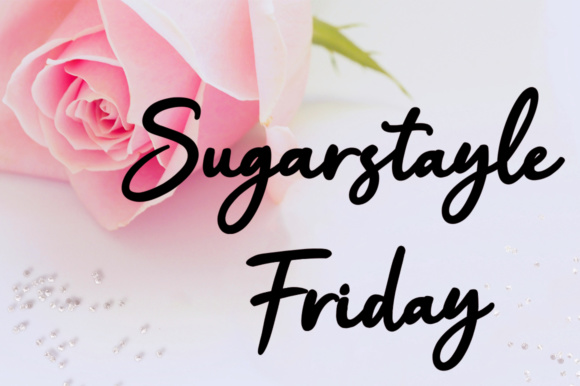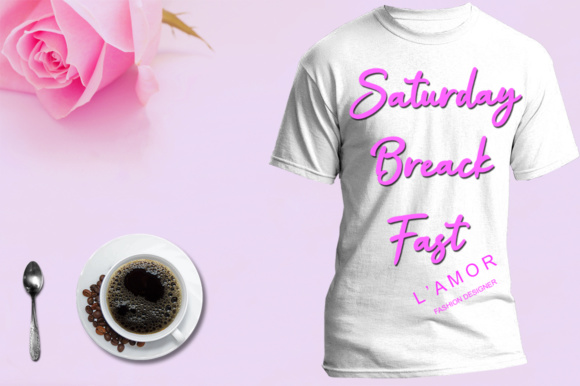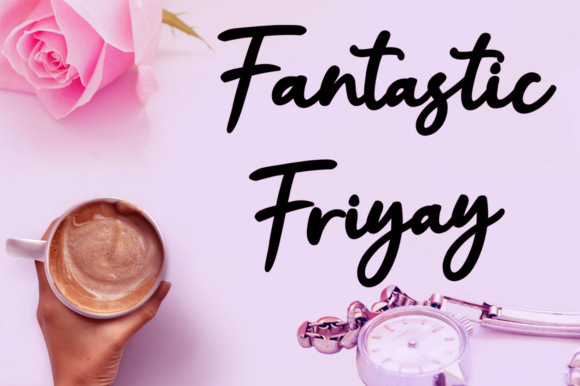
Introduction to Reaching Script Font
Have you ever been in a brainstorming session, staring at a blank canvas, trying to conjure up the perfect design to capture the essence of your project? That’s exactly where the Reaching Script Font comes in – a modern handwritten font that can breathe life into your creative project.
As designers, we’re always on the lookout for that special something that sets our work apart from the rest. And that’s exactly what Reaching Script Font offers – a unique, high-quality design resource that can elevate your brand projects, logos, and even greeting cards to the next level. With its transparent background and free download option, this font is a valuable addition to any designer’s toolkit, making it perfect for projects that require a personal touch.
Key Features of Reaching Script Font
- High-quality design resource ideal for creative projects, such as invitations, posters, and more.
- Reaching Script Font features a unique, handwritten style with a transparent background, allowing for easy customization.
- Includes a range of ligatures and swashes, adding an extra layer of personality to your design.
- Perfect for designers looking for a free, high-quality script font to elevate their creative project.
Honest Review: Reaching Script Font
I recently had the chance to work with the Reaching Script Font, and I’m excited to share my thoughts with you. As a designer, I’m always on the lookout for high-quality design resources that can elevate my creative projects. And, I’m happy to say, Reaching Script Font delivers.
- ✨ The font is incredibly versatile, perfect for a wide range of creative projects from invitations to branding materials.
- ✨ The high-quality design is crisp and clear, making it perfect for both digital and print projects.
- ✨ The transparent background is a nice touch, allowing for easy layering and composition.
- ⚠️ The font doesn’t come with a wide range of weights, which might limit its use in certain projects.
- ⚠️ The font is a bit on the ornate side, which might not be suitable for all design styles.
Overall, I’m really impressed with Reaching Script Font. It’s a great addition to any designer’s toolkit, and I’d highly recommend it for any creative project that requires a high-quality, elegant script font.
How to Use Reaching Script Font
The Reaching Script Font is a versatile design resource that can elevate your creative project with its high-quality, elegant script style. Download it for free to add a touch of sophistication to your visual content.
Tips for Getting the Most Out of Reaching Script Font
Experiment with different font sizes and colors to create visual interest. Combine Reaching Script Font with other fonts to create a unique typography style. Use it to add a touch of elegance to headings, titles, or even body text.
Use Reaching Script Font in wedding invitations, event branding, or luxury product packaging. It’s also perfect for creating beautiful quotes, social media posts, or blog titles that grab attention.